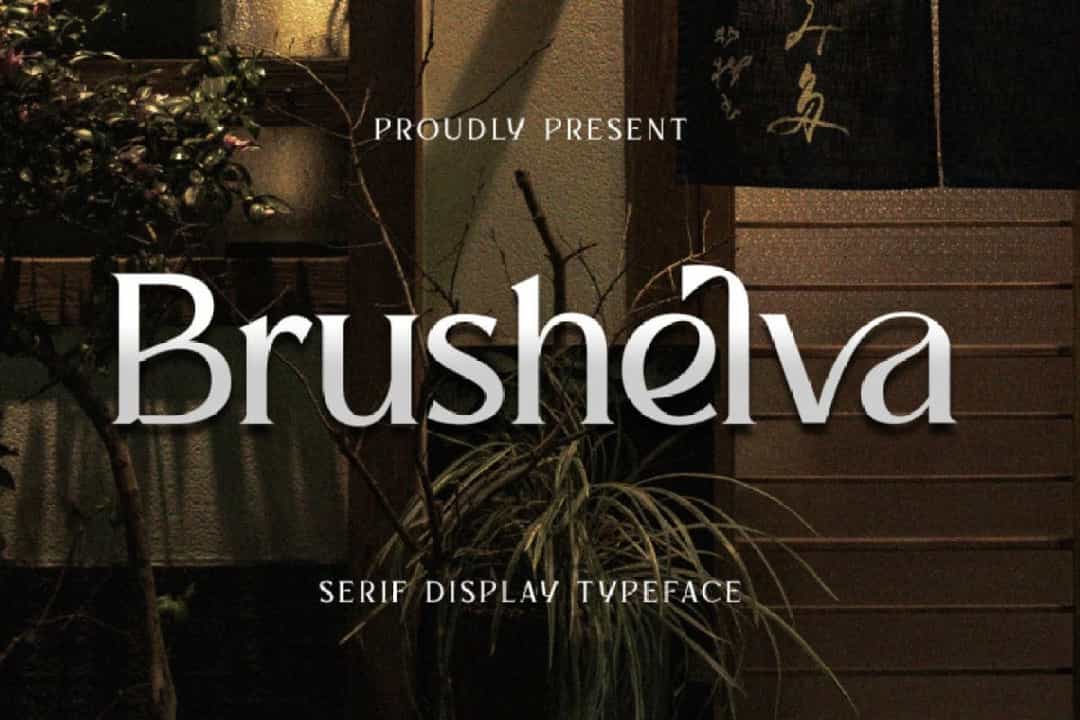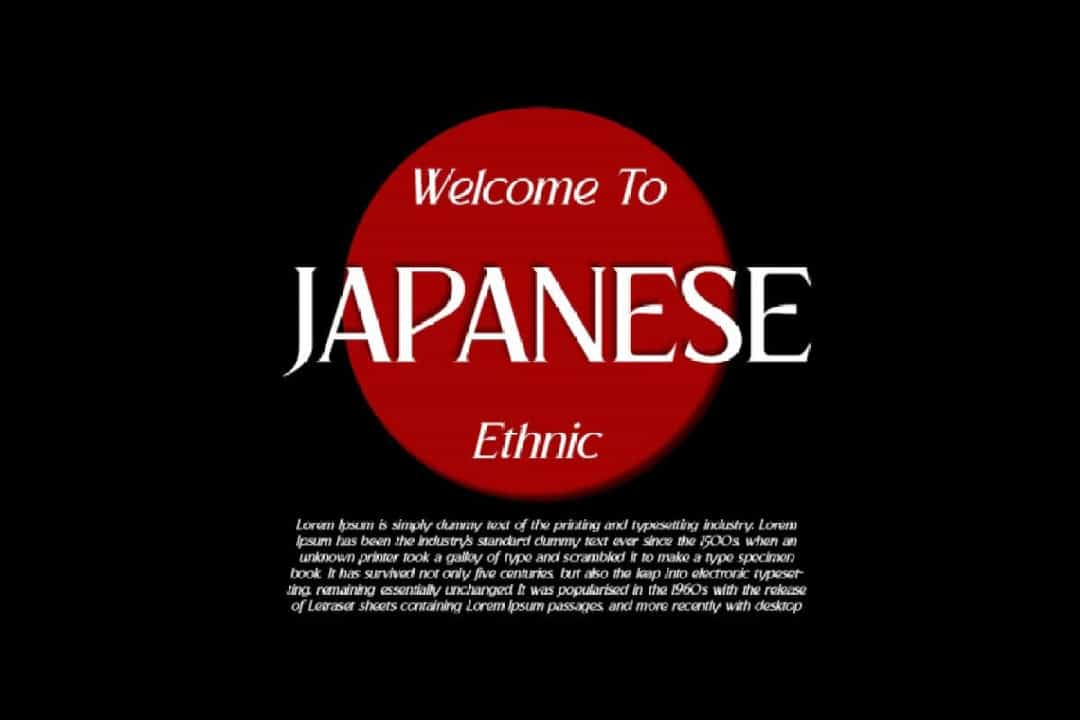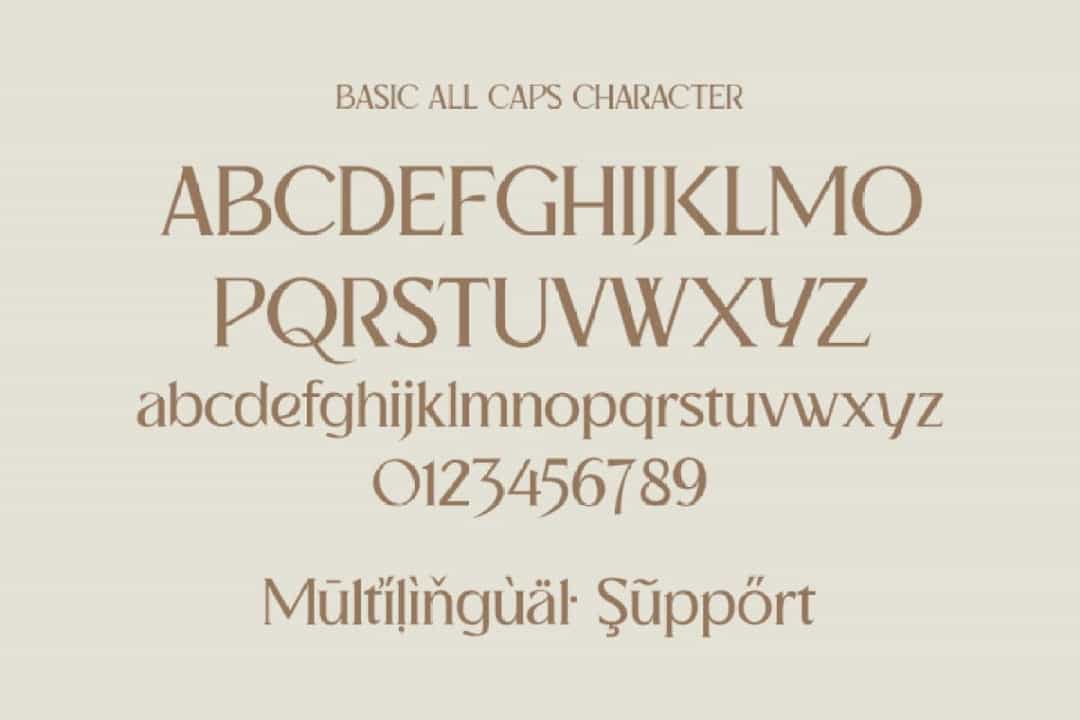
Discover Brushelva Font, part of the Serif Display collection—a versatile and unique font perfect for adding a personal touch to your projects. Download it for free and enjoy crafting designs with style, from invitations to social media posts. This font is available exclusively for personal use, giving you the freedom to create without limits. Unlock your creativity with Brushelva Font today!
Brushelvais is an elegant serif font designed with minimalist simplicity in mind, producing an elegant yet classy appearance. Suitable for small sizes, these small fonts provide an elegant and classy appearance and make Brushelvais an ideal font choice to create elegant logos, travel promotions layout magazines beauty product packaging or quotes as well as beautiful text overlays for every background picture.